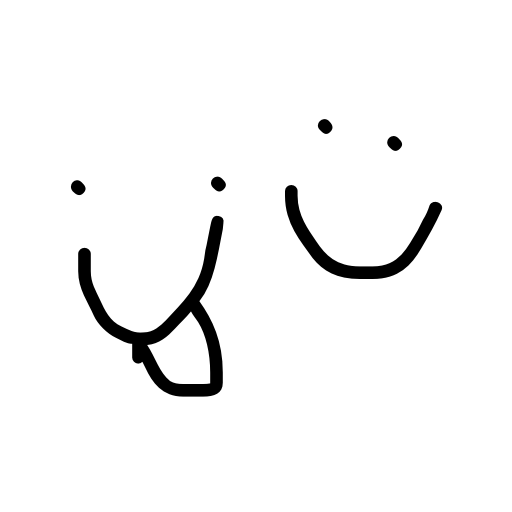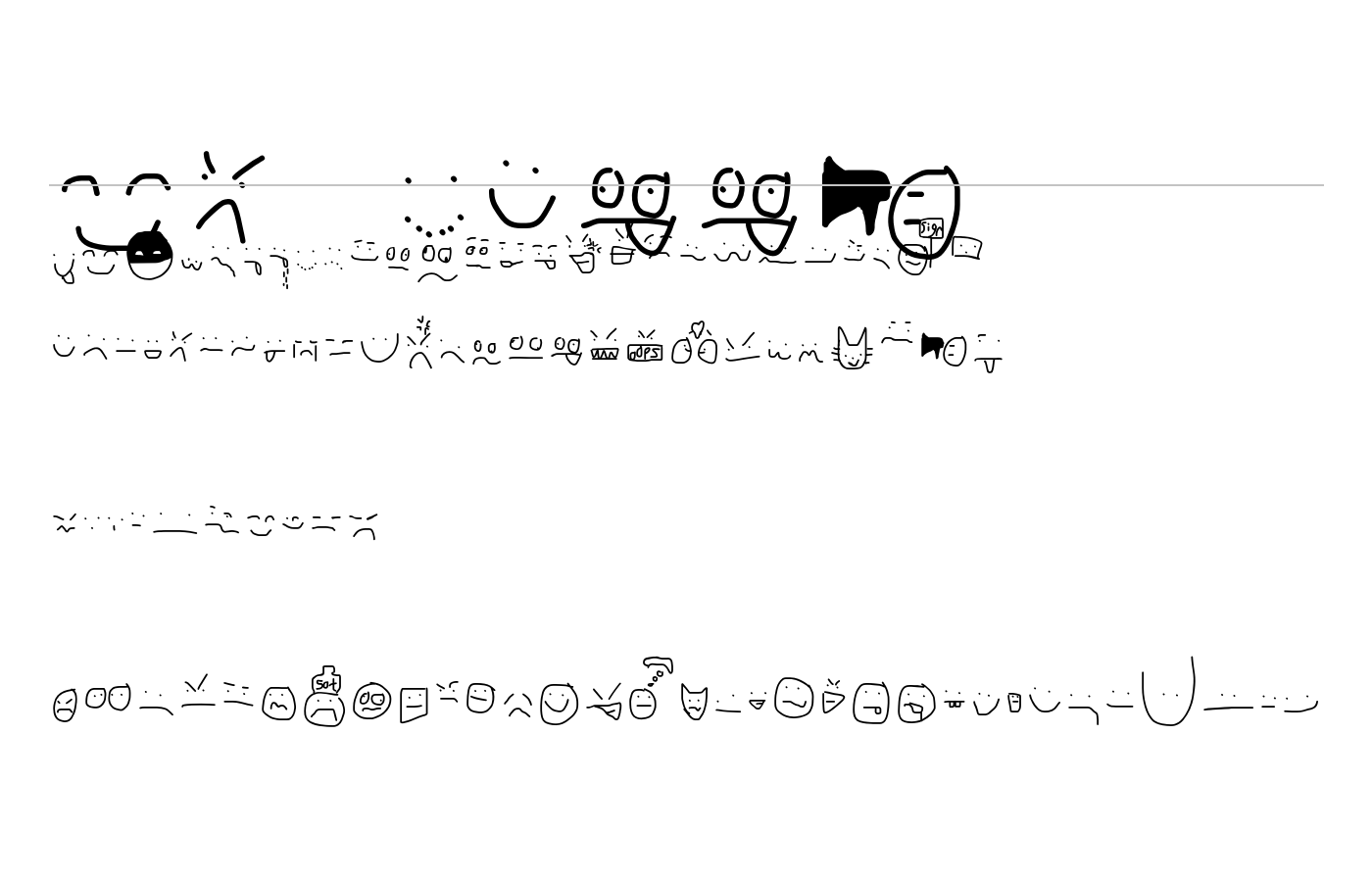
Be Happy Font is a playful and whimsical symbol typeface composed of various expressive smiley faces and emotive doodles. Its light, irregular line work and hand-drawn style give it a casual, friendly vibe perfect for informal and creative projects. This font works best in fun branding, youth-oriented designs, greeting cards, or any context seeking a joyful, lighthearted tone.
Be Happy Font
About Be Happy Font